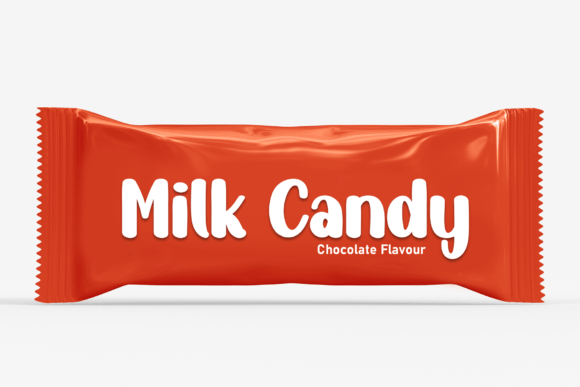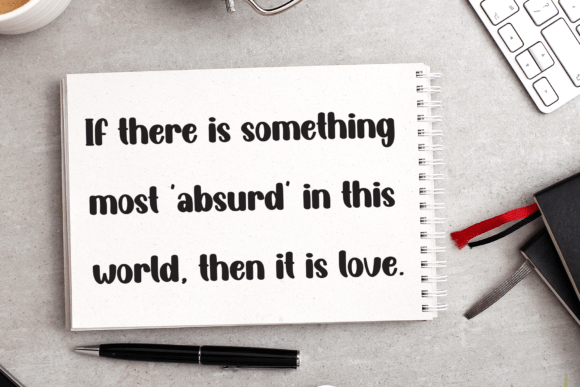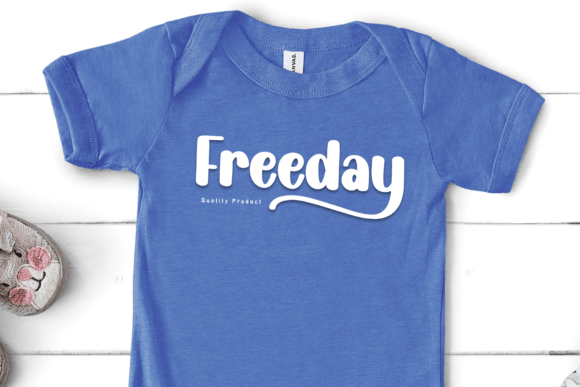
Introduction to Montage Font
Montage is a casual handwritten font that captures a relaxed and friendly vibe with its natural, flowing strokes.
Ideal for personal projects, social media, and invitations, it brings an effortless, charming touch to any design The font’s easygoing style adds warmth and authenticity.
Key Features of Montage Font
Montage Font offers exceptional quality and versatility, making it a valuable addition to your design toolkit. Whether you’re creating for personal projects or commercial use, Montage Font delivers professional results.